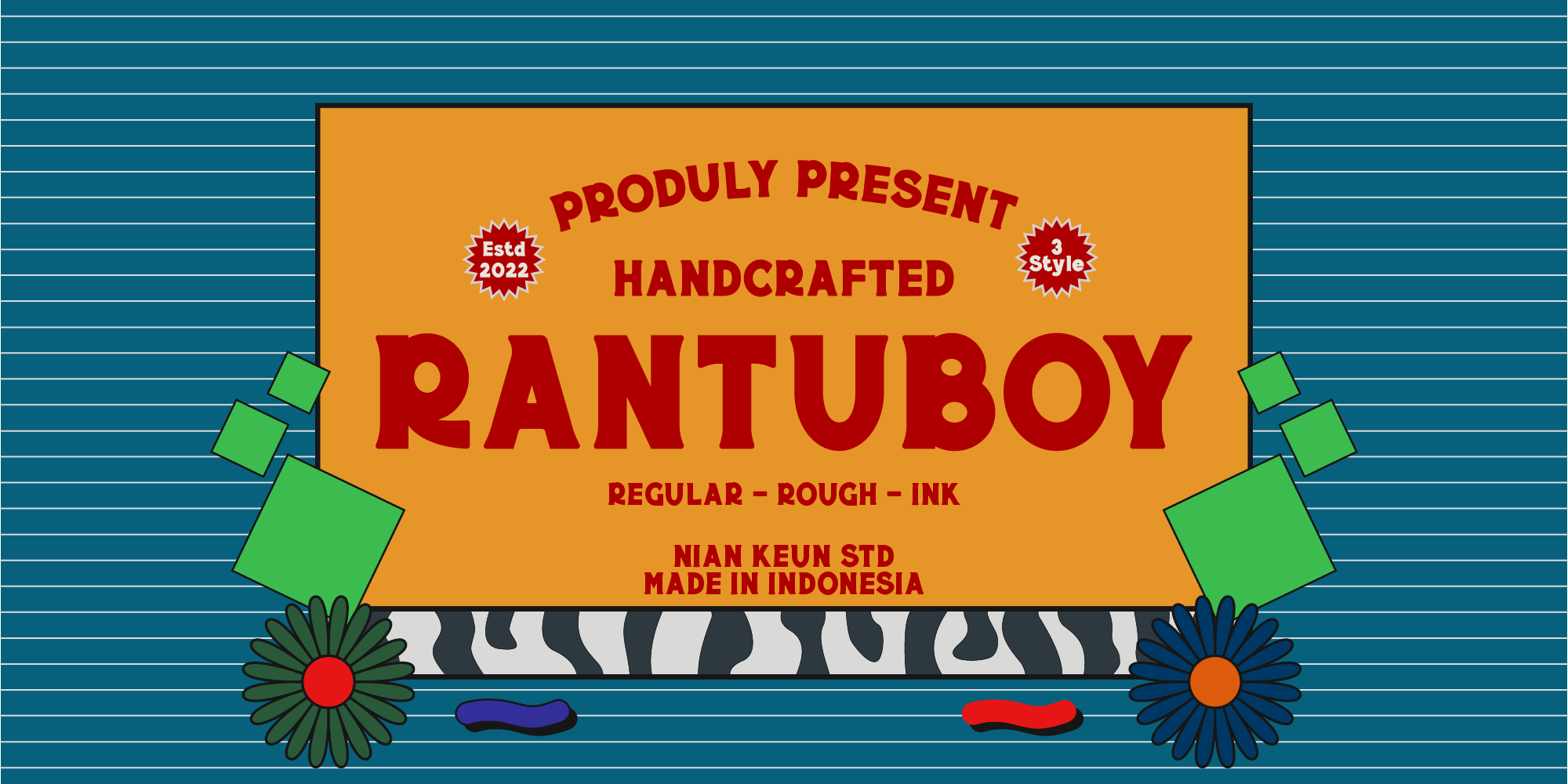
Rantuboy Font is ideal for playful children's branding, mischievous toy packaging, rebellious youth campaigns, energetic playground signage, spirited cartoon projects, and lively entertainment venue graphics.
Rantuboy Font is exciting because it captures the spirited energy and playful rebellion of youthful mischief, delivering a dynamic typeface that embodies childhood adventure, spirited independence, and the joyful chaos of youthful exuberance.
The Rantuboy Font family includes spirited variations: Rantuboy Light, Rantuboy Regular, Rantuboy Bold, mischievous alternates, and decorative elements that enhance the font's playfully rebellious and energetically youthful character.
Unleash youthful energy with Rantuboy Font Free Download, a spiritedly crafted typeface that brings playful rebellion and childhood adventure to your most energetic design projects. This dynamic font excels in creating memorable branding for children's entertainment centers, youth activity programs, adventure summer camps, and family fun venues that celebrate the boundless energy and creative spirit of childhood exploration. The energetically designed letterforms feature bouncy proportions and spirited details that communicate youthful enthusiasm, playful mischief, and the fearless adventure-seeking spirit while ensuring excellent readability across all youth-focused applications. Perfect for children's book illustrations, youth sports leagues, adventure playground materials, and family entertainment promotions that need to capture the excitement and boundless energy of childhood, this font connects with young audiences who crave adventure and embrace life with enthusiastic spirit. Each character bounces with youthful vigor, making every energetic message feel like an invitation to join exciting adventures filled with laughter and discovery. Rantuboy Font transforms ordinary communications into spirited adventures that celebrate the joyful energy of youth while encouraging children to embrace their natural curiosity and adventurous spirit in safe, supportive environments where imagination can flourish.